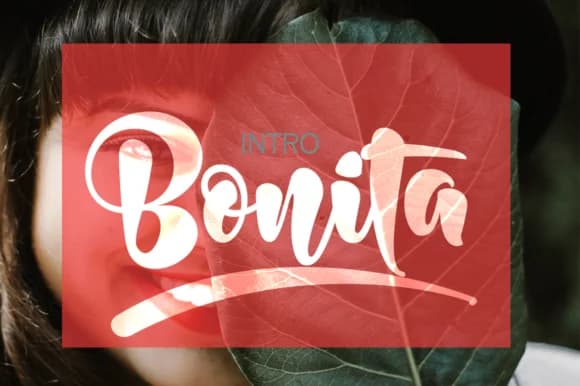
Bonita Font by JorseType is a bold handwritten script that demands attention with its striking, assured letterforms and distinctly personal character. This typeface brings genuine artistic authenticity to creative projects requiring visual impact and commanding presence, from carefully crafted brand applications and logo lettering to specialty design work that genuinely benefits from a distinctive aesthetic voice and personality. The script's weighty character shines particularly when designing wedding invitation suites, creating premium boutique product packaging, and producing DIY craft signage, the kinds of projects where an authentic, hand-crafted quality creates measurable creative resonance and emotional connection. The font's confident presence appeals to designers and creative professionals working on specialty projects where personality, individuality, and artistic expression matter most. Whether you're developing comprehensive greeting card collections, building a distinctive brand identity system, creating memorable event signage and promotional pieces, or designing product labels for artisan goods, Bonita provides the visual impact and character needed to stand out from typical typographic choices. Its bold weight delivers excellent legibility and clarity across different mediums and applications, working equally effectively for digital design work, web graphics, and printed collateral, ensuring complete creative versatility for both professional and personal projects. Get Bonita Font from Creative Fabrica and infuse your designs with confident, artistic character.
- Elegant, Flowing, Bonita
Bonita Font is a script font that shines as a display or heading face. Pair it with a clean sans-serif or serif font for body text β the contrast creates a clear hierarchy while the two styles stay balanced and easy to read.
Bonita Font